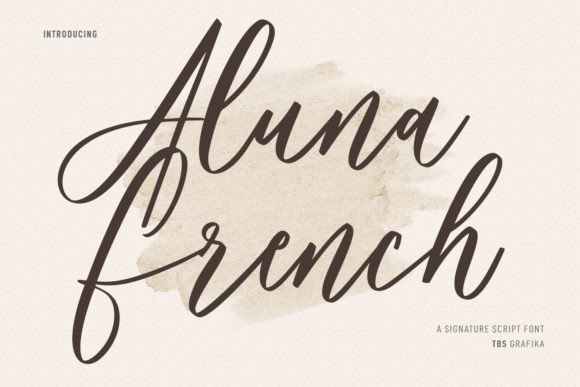
The Aluna French Font: A Designer’s New Best Friend
I still remember the last time I was working on a logo design project, and I just couldn’t seem to find the perfect font. My client wanted something elegant, yet playful, and I was starting to get desperate. That’s when I stumbled upon the Aluna French font, and let me tell you, it was love at first sight! 💕
With its fancy handwritten style, regular contrast strokes, and fun character, Aluna French is the perfect addition to any design project. In this article, I’ll be sharing my honest review of this beautiful font, along with some practical tips on how to use it, similar font alternatives, and a little backstory behind its creation.
An Honest Review of Aluna French Font
• ✨ Elegant and sophisticated, yet playful and fun
• ✅ Regular contrast strokes that add depth and character
• 💫 Fun and quirky ligatures and alternates to give your design an extra creative boost
• 📚 Suitable for a wide range of design projects, from logo design to book titles and social media posts
• 🤔 May not be the best choice for very long texts, as its elegance and sophistication may get lost
• ⚠️ Some users may find the font’s playfulness and quirks a bit too much for certain design projects
The Backstory Behind Aluna French Font
Aluna French was designed by a team of typographers who wanted to create a font that would capture the essence of French elegance and sophistication. The font’s designer was inspired by the beautiful handwriting of French calligraphers and the intricate details of traditional French typography.
Q: What is the Aluna French font best used for?
A: Aluna French is a versatile font that can be used for a wide range of design projects, including logo design, social media posts, movie titles, book titles, and short texts.
Q: Is Aluna French a difficult font to read?
A: Aluna French is a elegant and sophisticated font, but it may not be the best choice for very long texts, as its playfulness and quirks may make it a bit more difficult to read.
Q: Can I use Aluna French with other fonts?
A: Yes, Aluna French can be paired with other fonts, such as sans-serif or serif fonts, to create a unique and interesting typography combination.